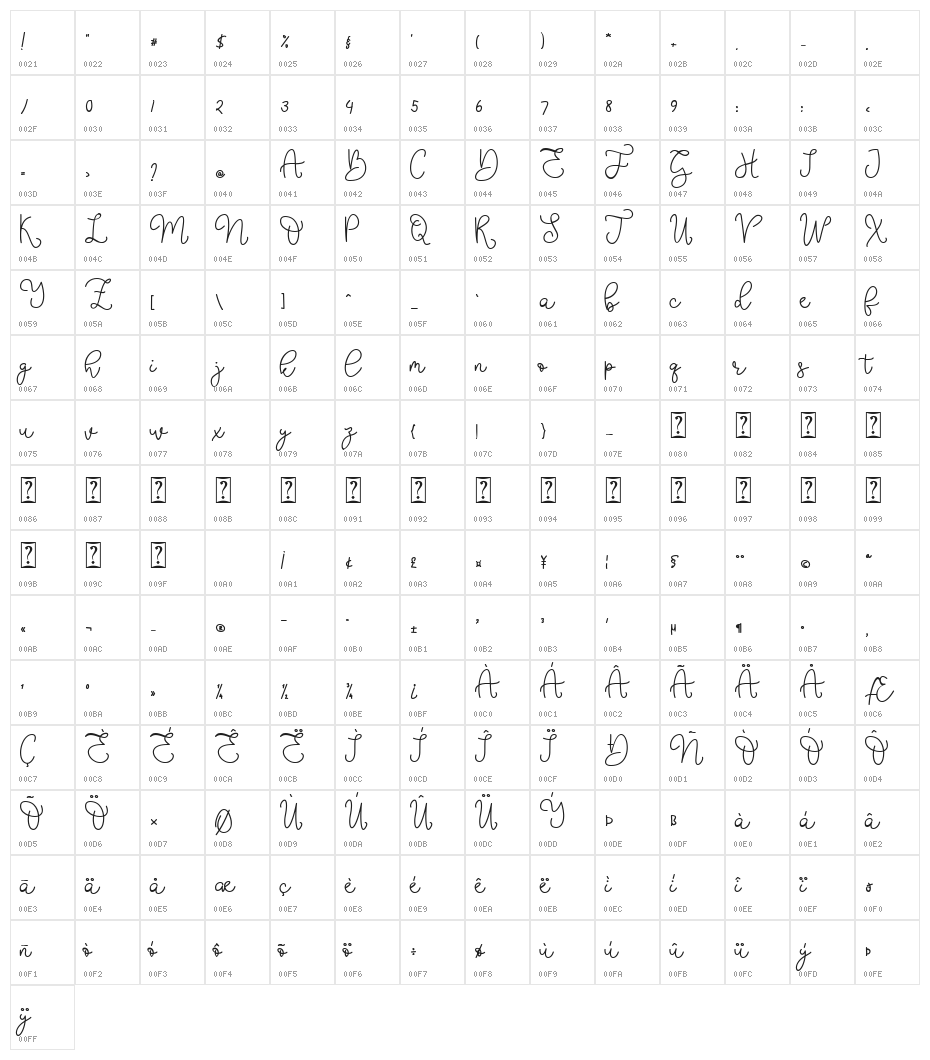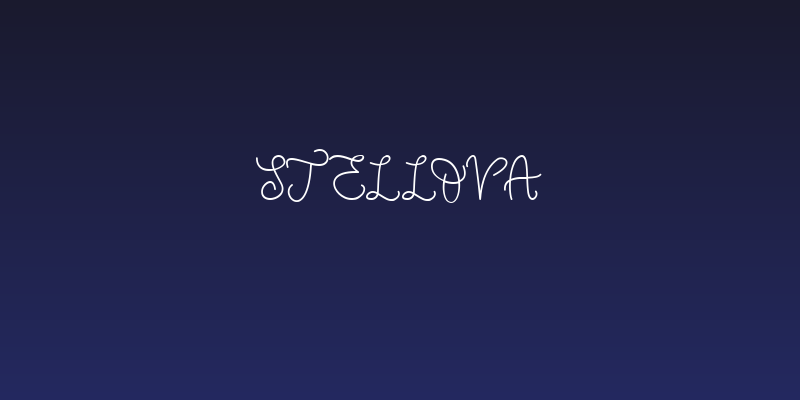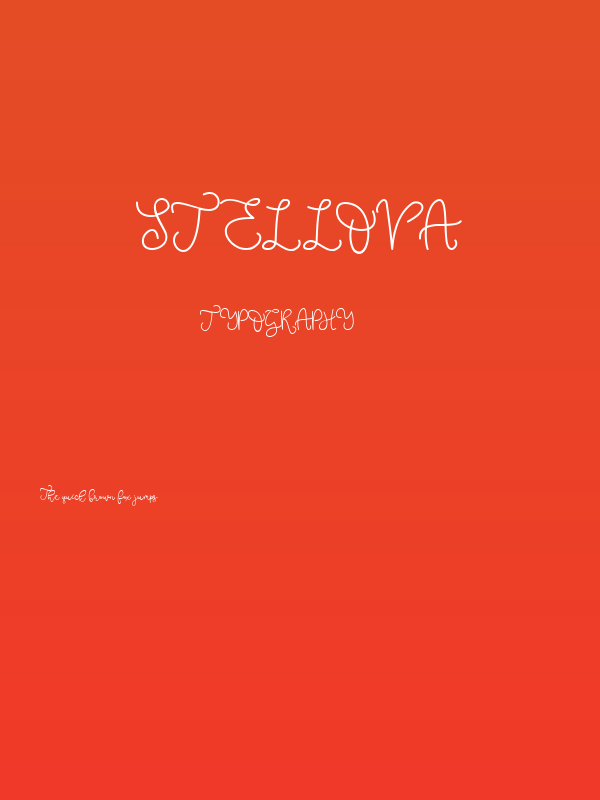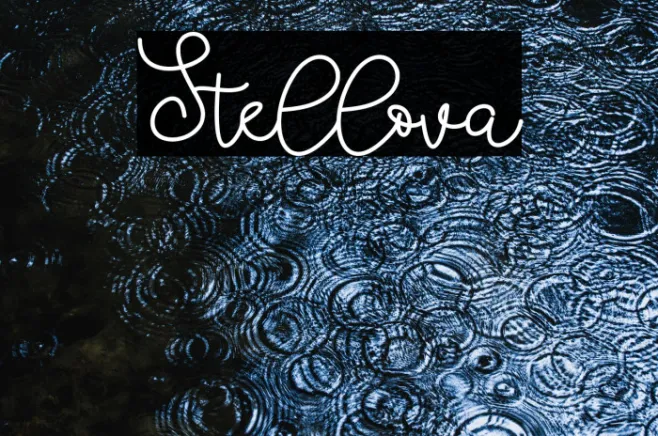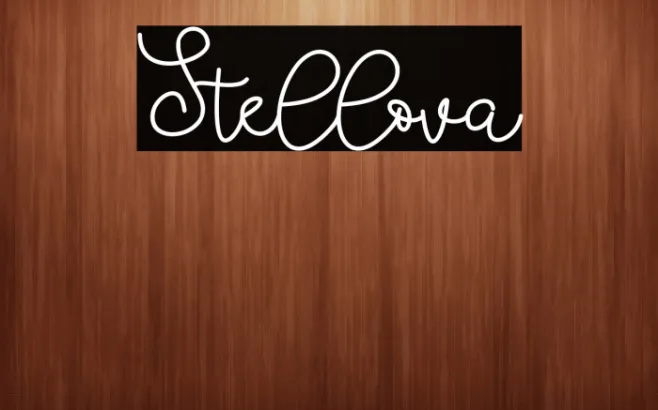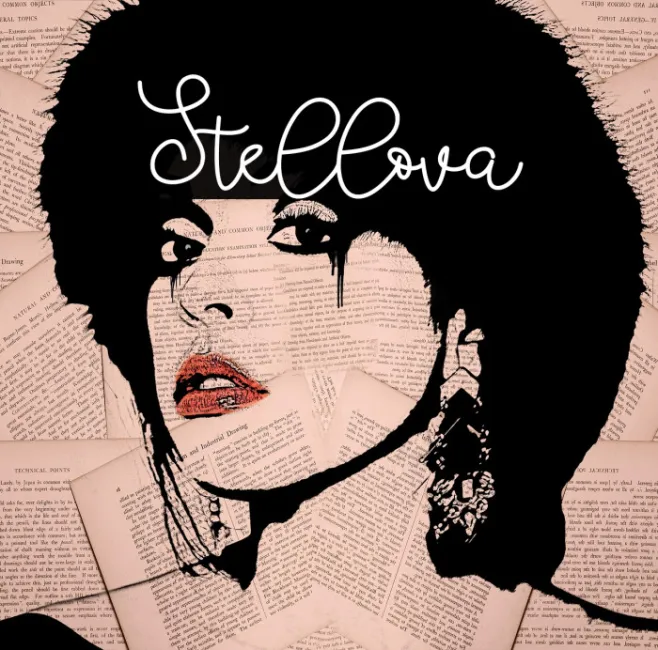
Stellova Font
Stellova Description
This font features a playful and elegant script style, characterized by its flowing, cursive letterforms. The uppercase letters exhibit a whimsical flair with loops and curves, while the lowercase letters maintain a consistent, smooth flow. The numerals are designed to match the script style, offering a cohesive look. Special characters are integrated seamlessly, maintaining the overall aesthetic. The font's design is both decorative and legible, making it suitable for a variety of creative applications.
| Proposed Projects | Ideal for wedding invitations, greeting cards, branding projects, and social media graphics. |